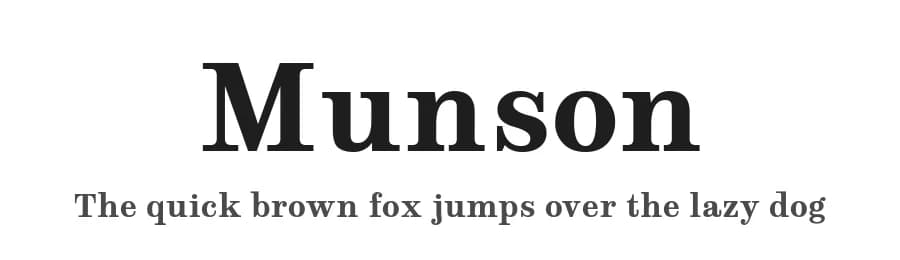
About Munson Font
The Munson font is a Victorian style slab serif font which was inspired by the Consort typeface of 1815 by the Stephenson Blake Company of Sheffield and the Clarendon typeface of 1845 by the Fann Street Foundry of London.
Although inspired by these fonts a lot of artistic license has been taken in the interpretation and the typeface is not a direct representation of either font.
The italics were designed to resemble the equation italics of Mathematics textbooks of the late 1800's.
There are many open type features.
- Bold, Classic, Refined, Basic
| Designer | Paul James MIller |
- Small capitals from capitals
- Contextual ligatures
- Small capitals
Munson Font
by Paul Miller